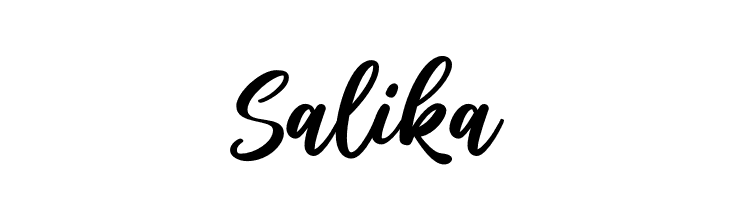
A lively, cursive font with elegant connections and a dynamic style.
A bold, flowing script font with interconnected letters and dynamic strokes.
A modern, elegant script font with flowing cursive letters and dramatic flourishes.
A flowing, cursive script with elegant loops and swashes.
A modern, elegant script font with flowing, interconnected characters.
A cursive, handwritten-style font with elegant, flowing characters.